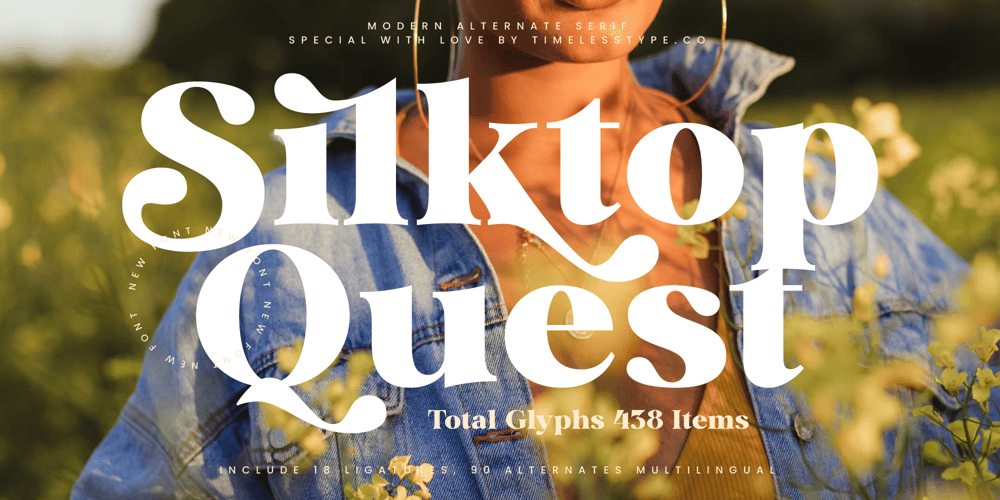
Silktop Quest Font Family was designed by Heru Utama Putra and published by Timelesstype Studio. Silktop Quest contains 2 styles and family package options. Silktop Quest – Modern Alternate Serif , from Timelesstype, Suitable for any projects such as: logos, branding projects, homeware designs, product packaging, mugs, quotes, posters, shopping bags, t-shirts, book covers, name card, invitation cards, greeting cards, label, photography, watermark, special events, and all your other luxury and beautiful projects that need a Luxury Serif taste.